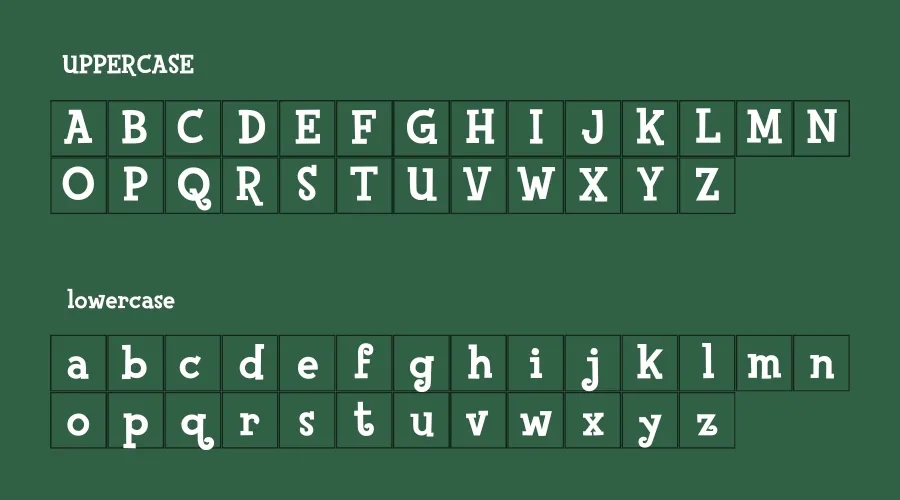
About Fink Heavy Font
Introducing another amazing typeface that belongs to the fancy font category named Fink Heavy Font. With this font, you can create fun designs that everyone will love. This font has a Regular subfamily.
This font was nicely created by the designer. It consists of medium strokes with rounded corners that create a unique texture. A large text this is a perfect choice because of its styling. You can easily compare this font with the trash butterfly font.